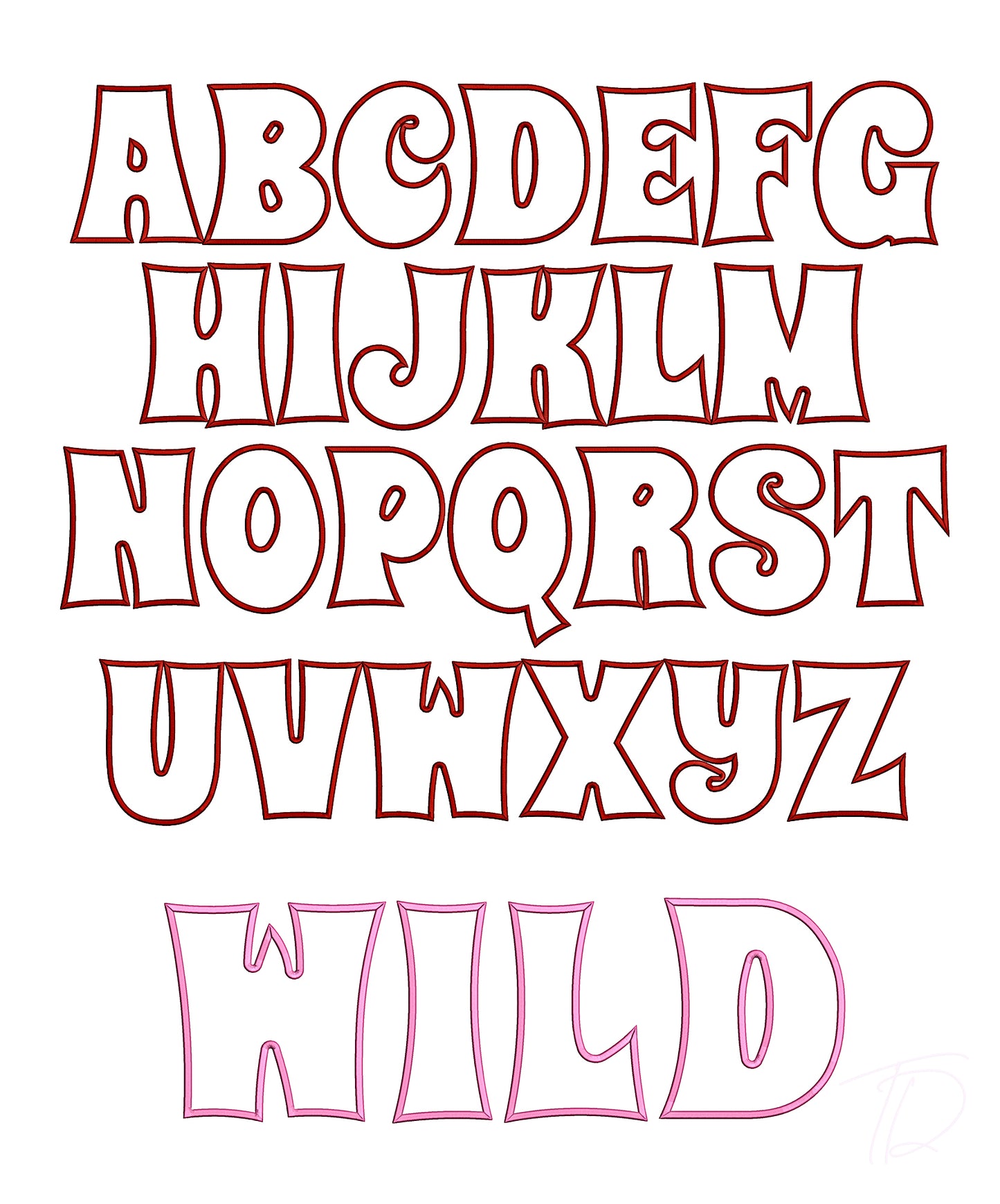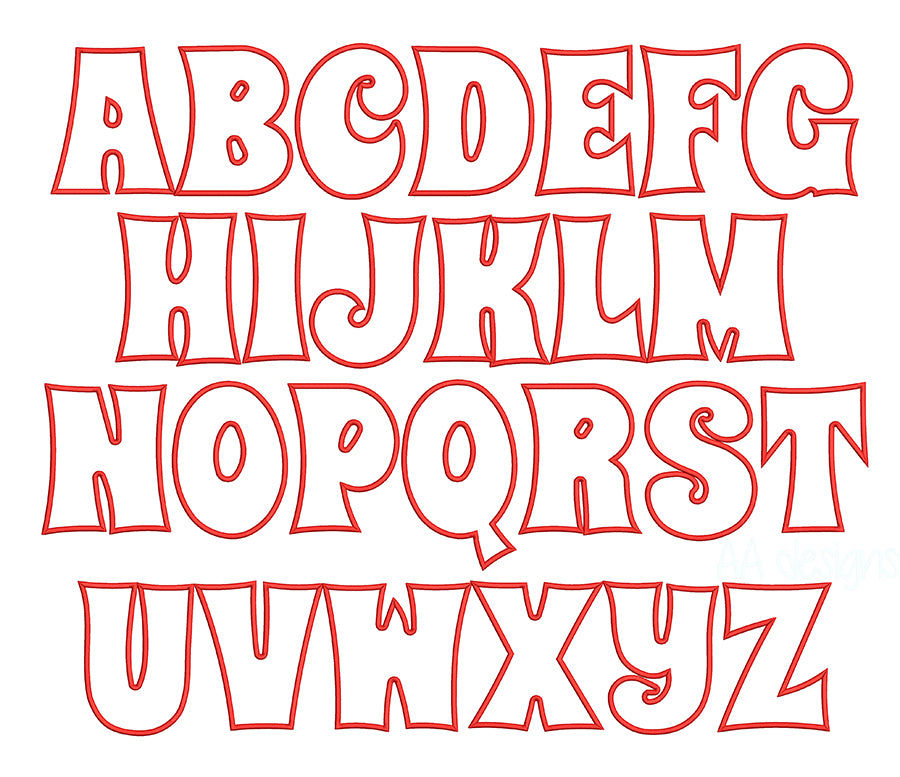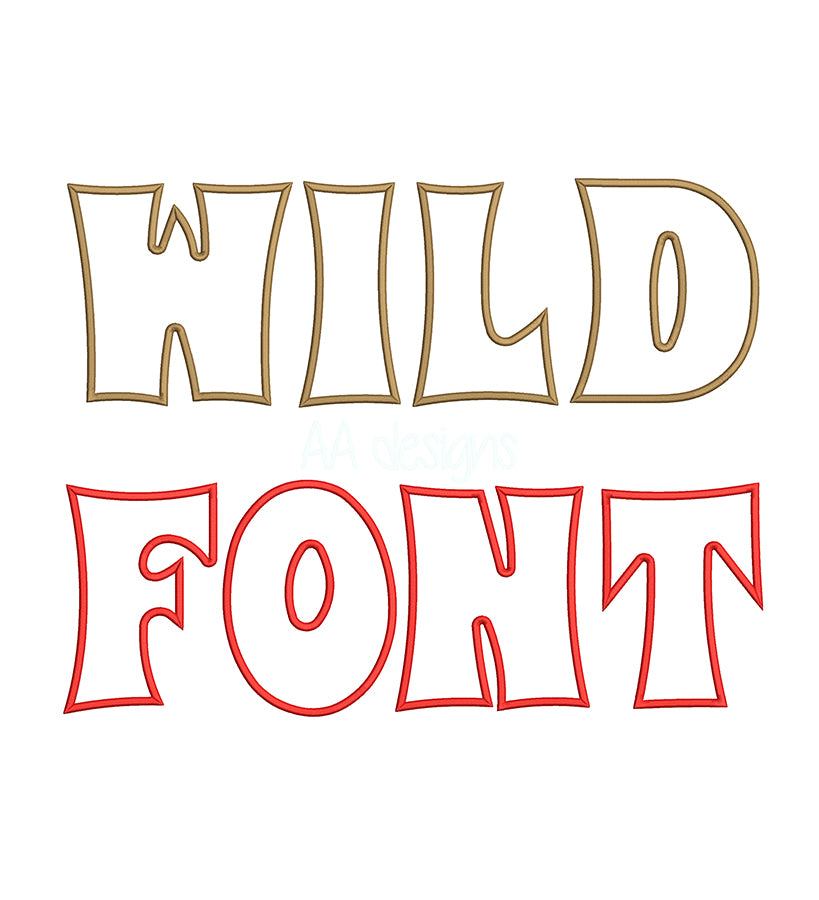
Wild Applique Embroidery Font
Unleash your creativity with our Wild Applique Embroidery Font — a fierce, expressive alphabet built for applique machine embroidery. With untamed letterforms and a bold layered fabric finish, this font brings raw energy and personality to any project it touches.
- Applique-style construction for a striking, dimensional finish with lower stitch count
- Bold, untamed letterforms with a wild, adventurous character
Whether you're creating jungle-themed kids' apparel, wild animal gifts, or just want to add some untamed flair to everyday items, this font lets your creativity run free.